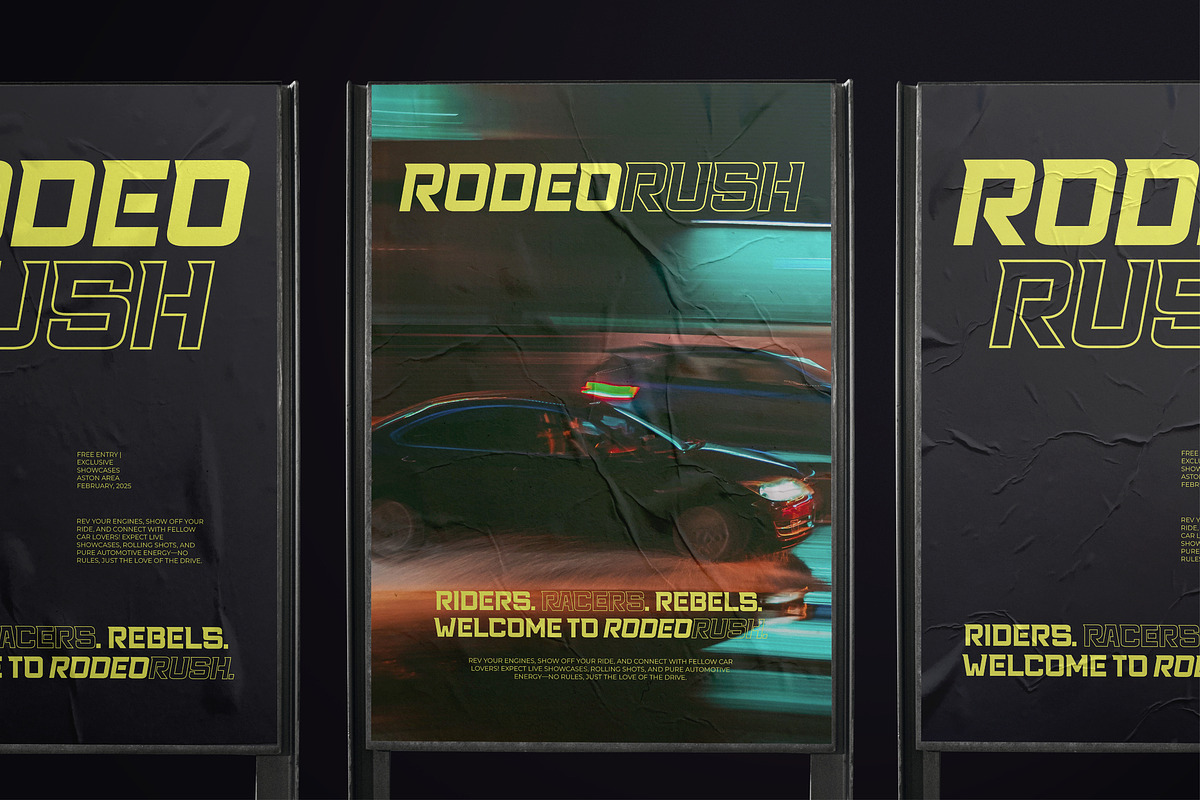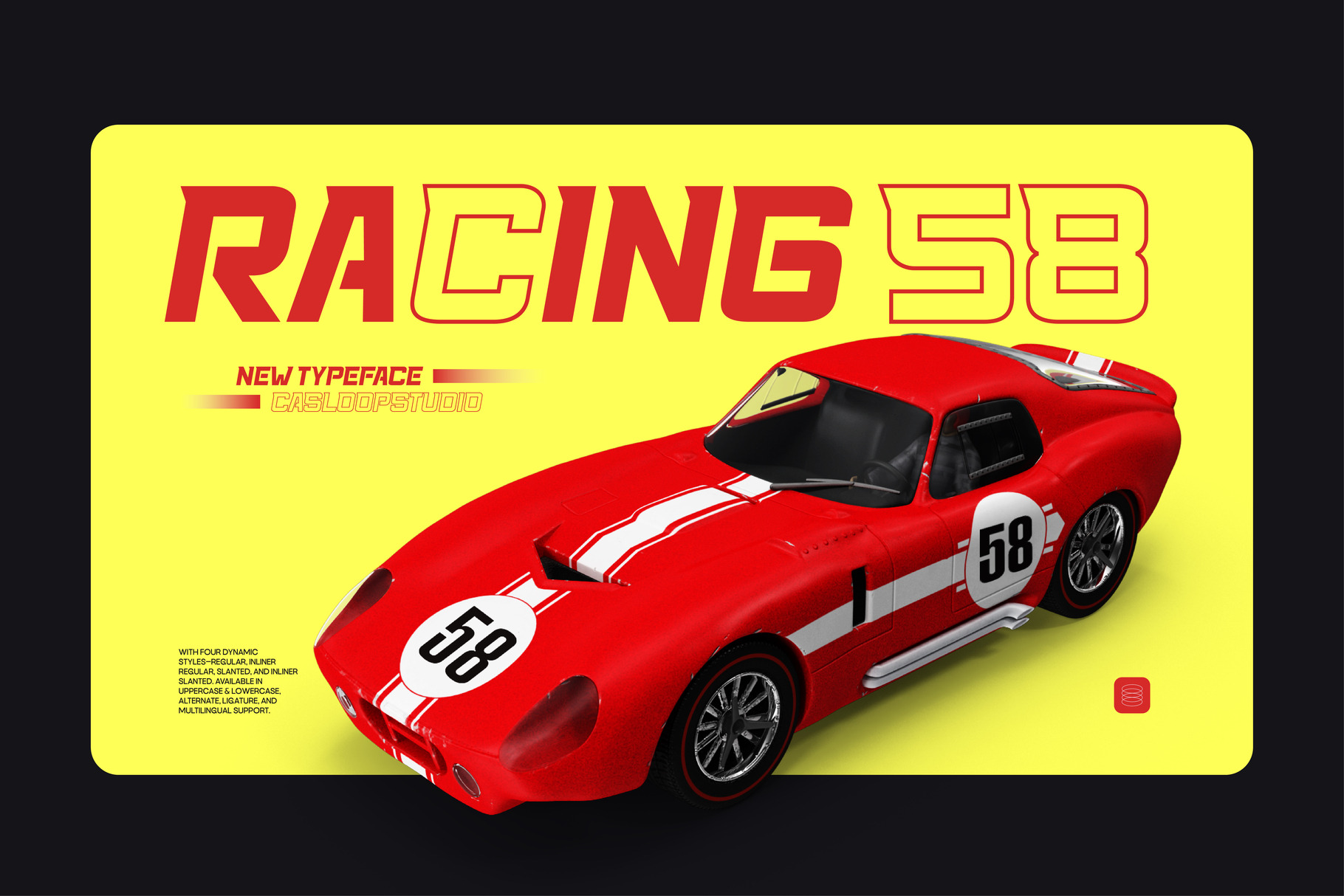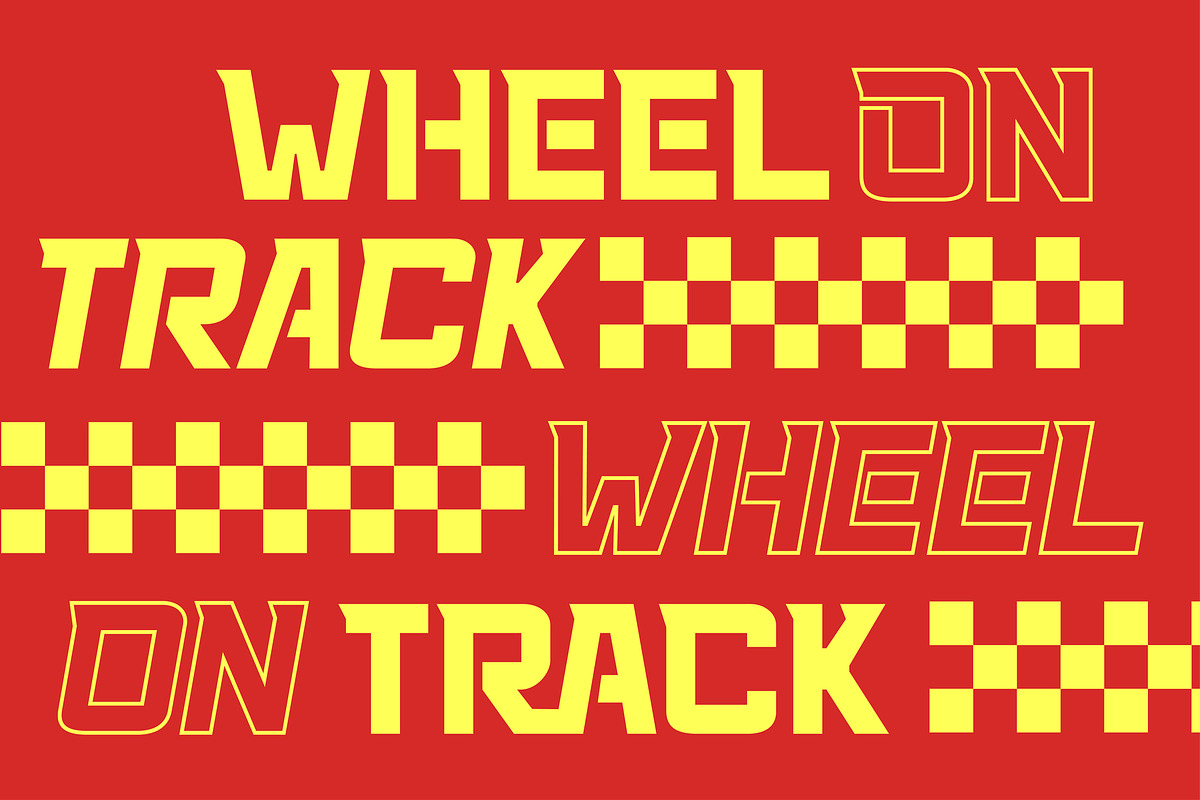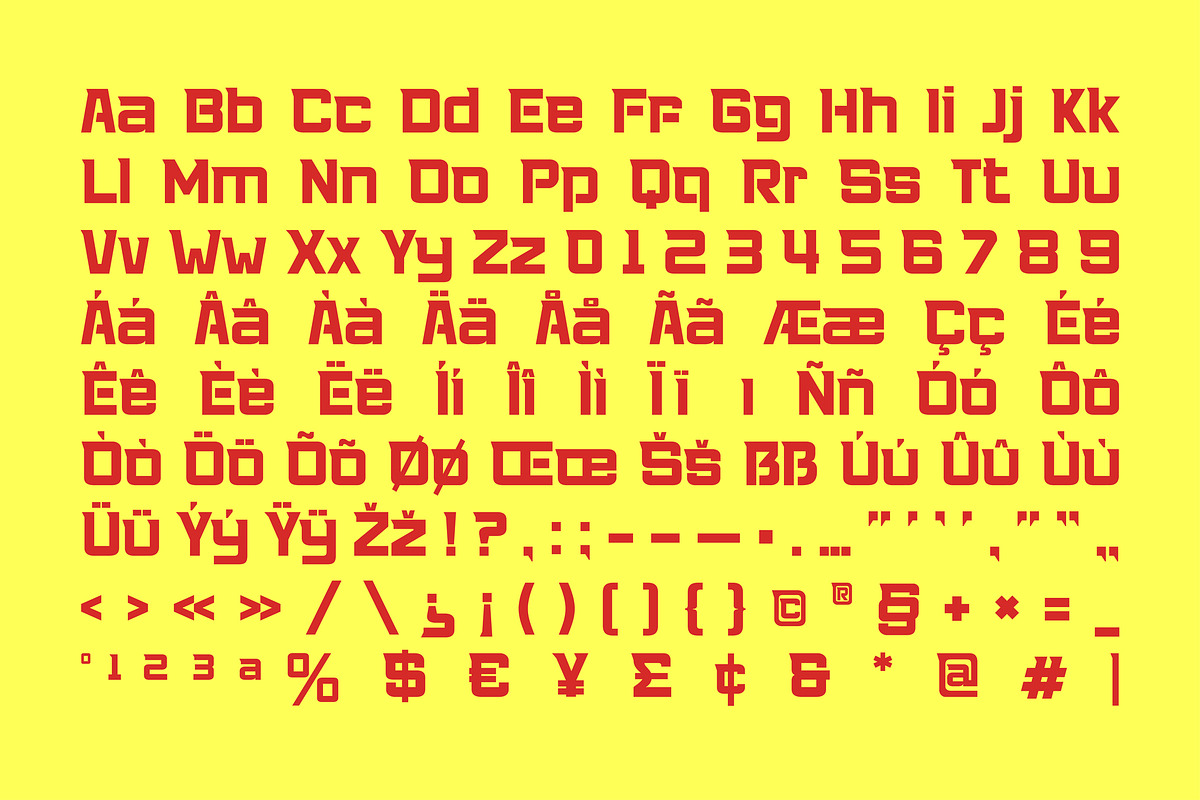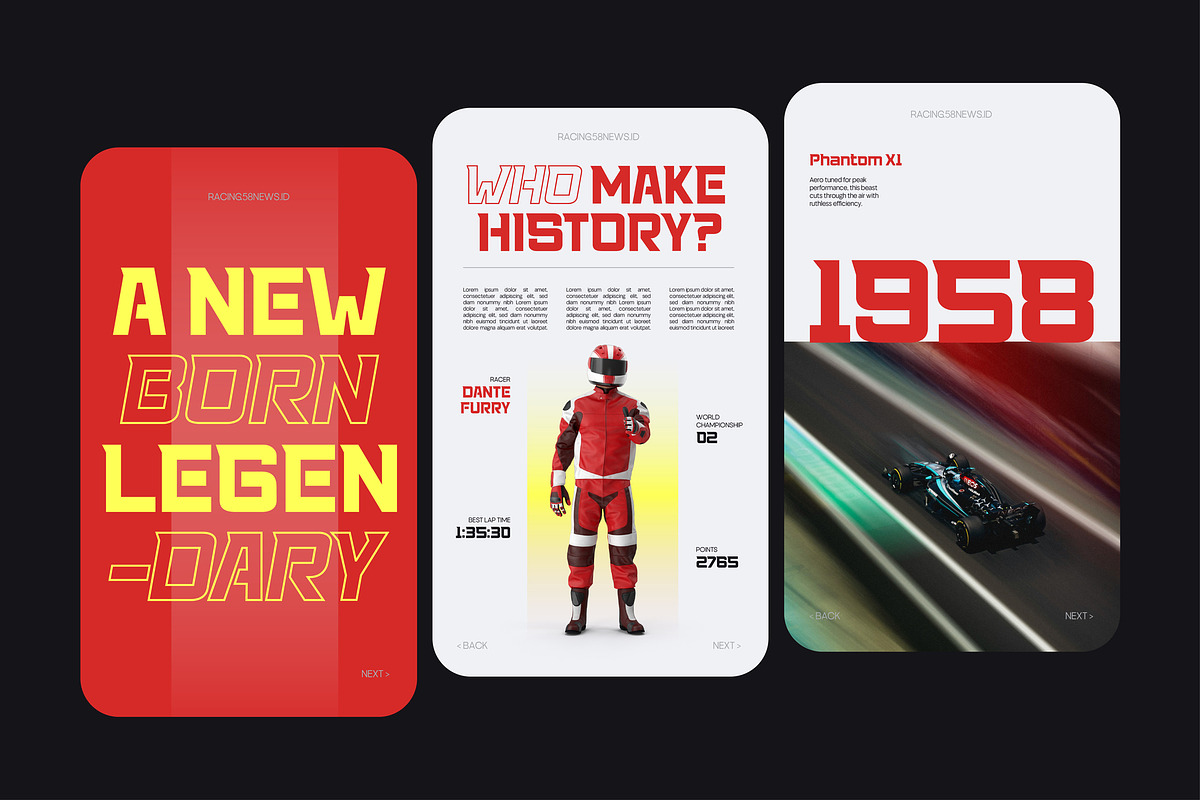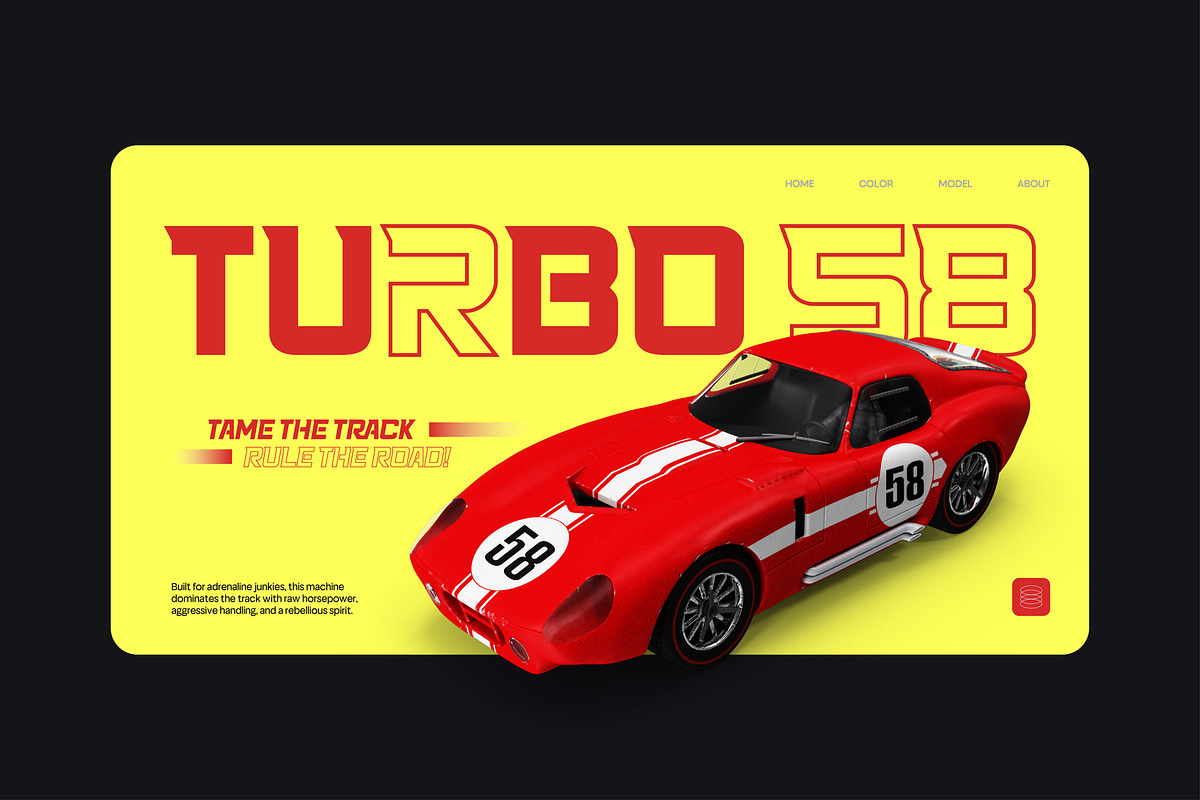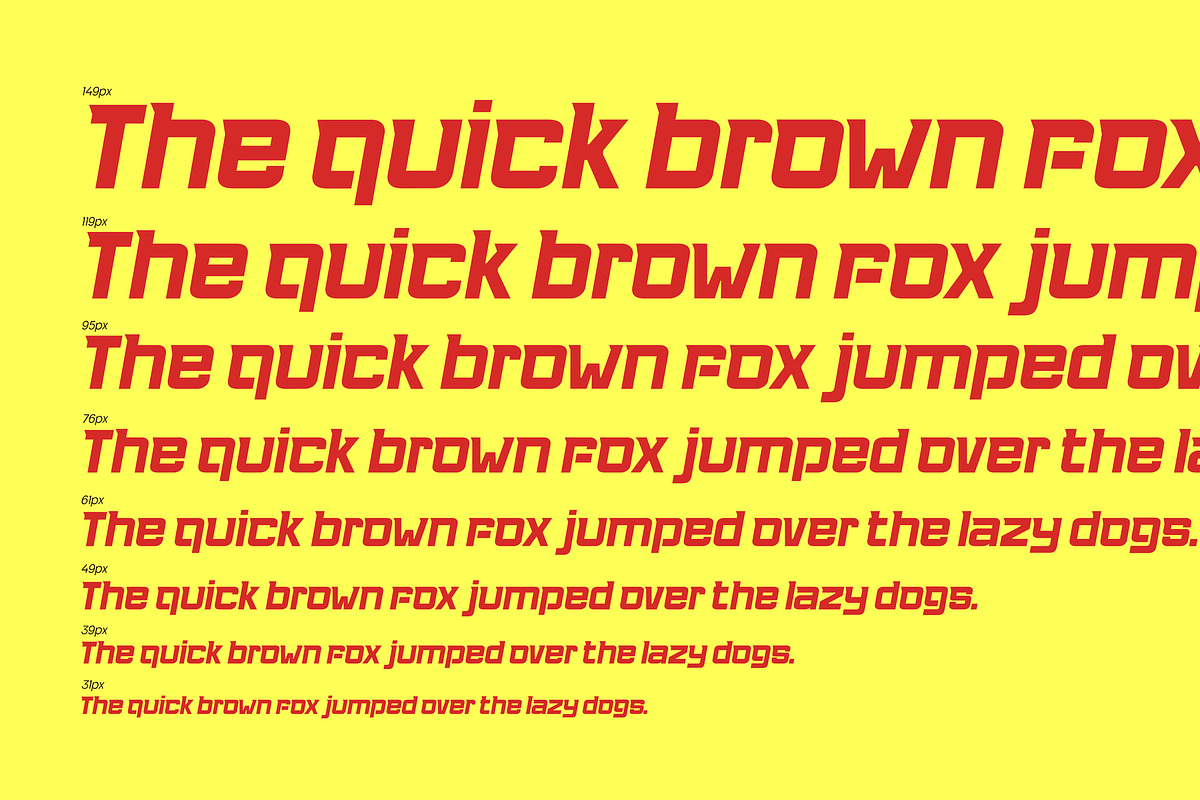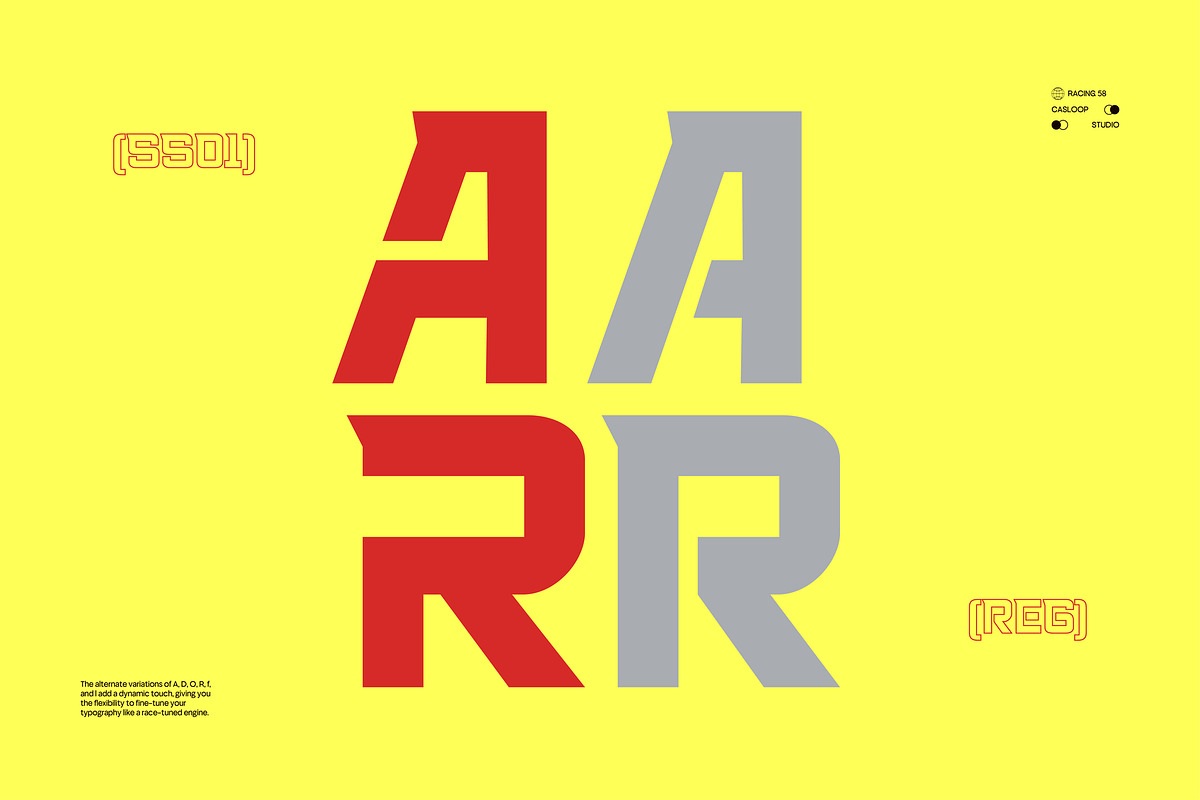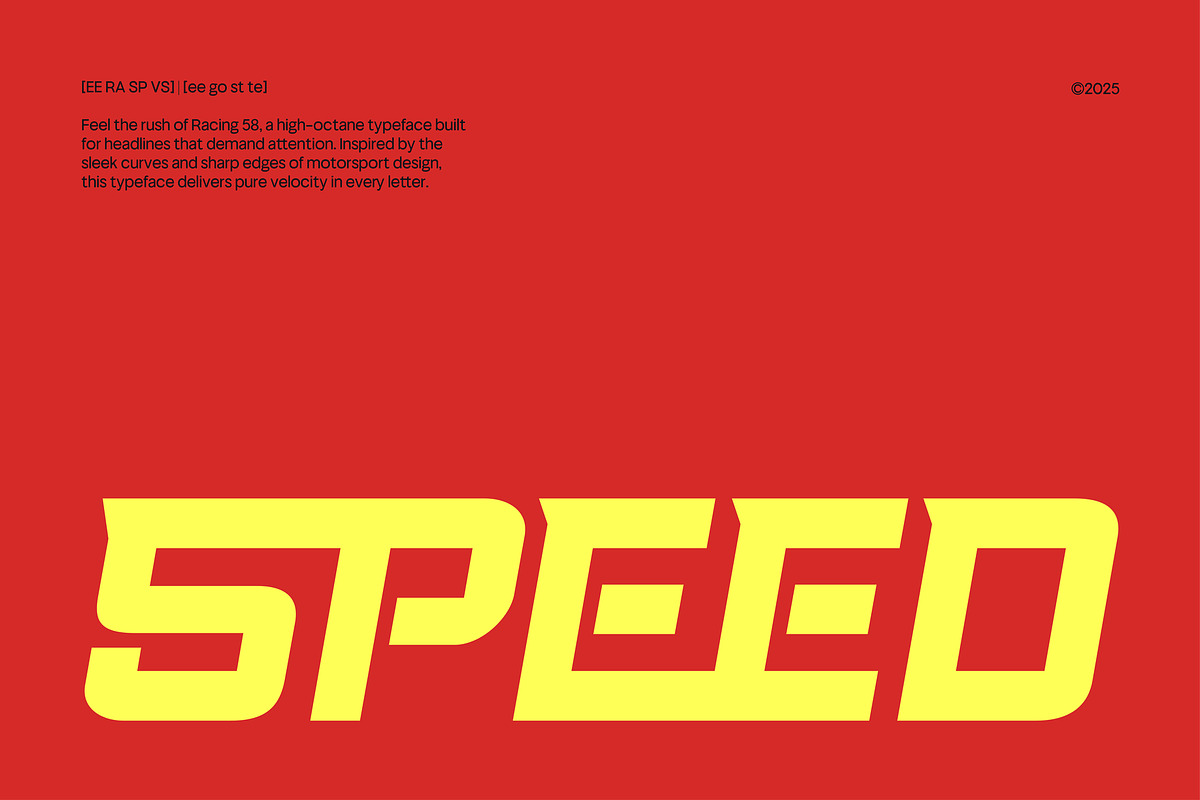
Racing 58 - Sport Racing Logo Font
Racing 58: High-Speed Typography for Adrenaline-Fueled Designs
Racing 58 is built for speed, power, and bold impact. Inspired by the energy of motorsports, this typeface delivers a high-speed aesthetic with slanted & aggressive shapes, aerodynamic letterforms, and a dynamic slant that commands attention. Whether it's for race-day branding, high-octane posters, or performance-driven visuals, Racing 58 ensures your message leaves everything else in the dust.
Features -Modular & geometric structure designed for precision and consistency -Speed-driven letterforms inspired by vintage race cars, pit lane signage, and bold automotive typography -Alternate styles and ligatures for extra flexibility -Multiple styles including Regular, Slanted, Inline, and Inline Slanted -Full multilingual support with accented characters -Available in OTF, TTF, WOFF, and WOFF2 formats
Best for -Motorsport branding like team identities, logos, and performance product packaging -Event and poster design for racing tournaments, car shows, and sports events -Social media graphics, YouTube thumbnails, and bold apparel -Gaming and tech-related visuals, including esports branding and futuristic interfaces
Versatility in racing & sports themes, making it ideal for dynamic, speed-oriented designs Every curve and edge in Racing 58 is tuned for impact. Whether you’re designing for the track or the digital world, this typeface brings the thrill of speed to life.